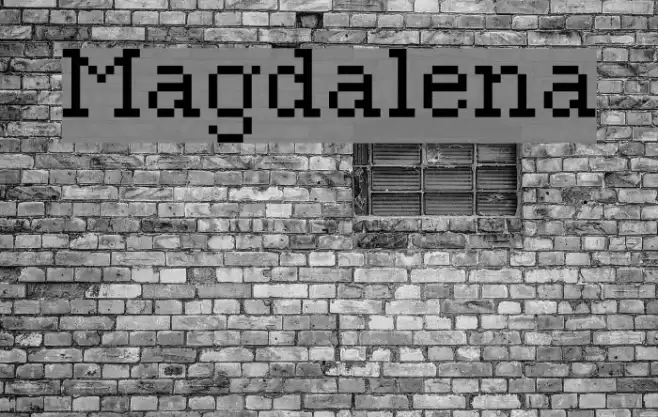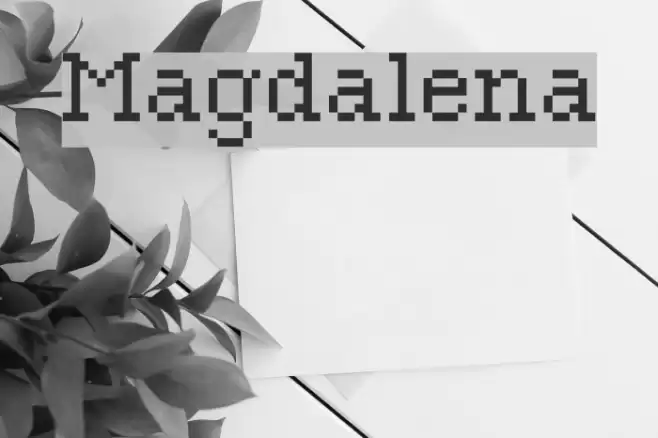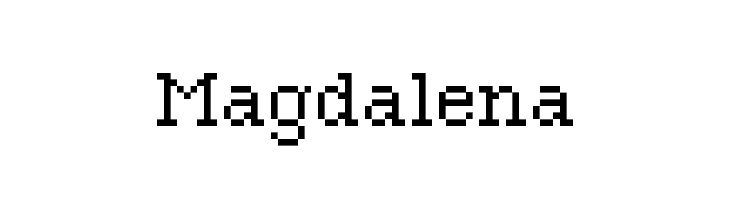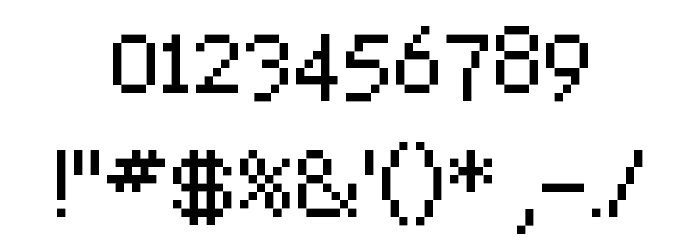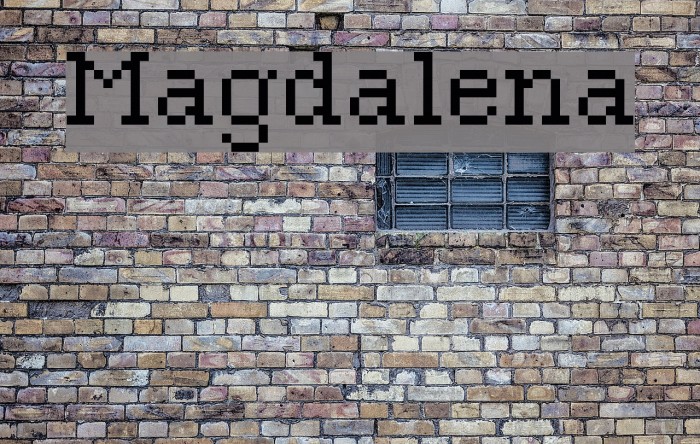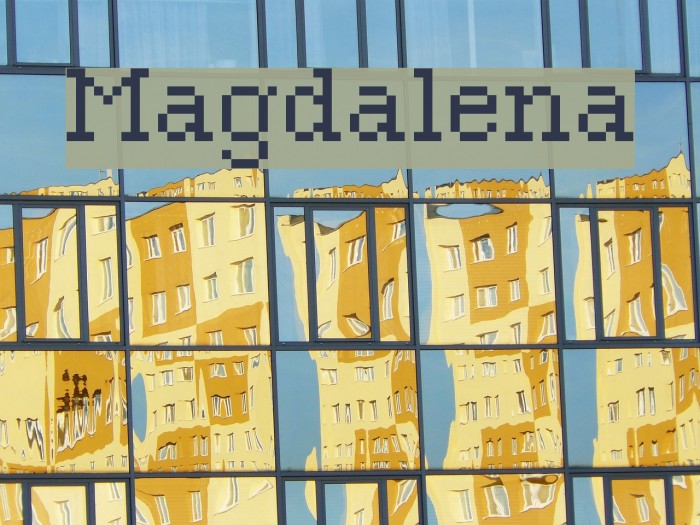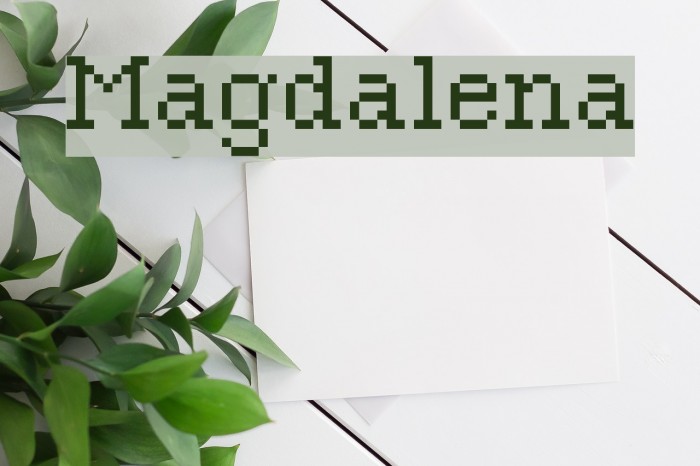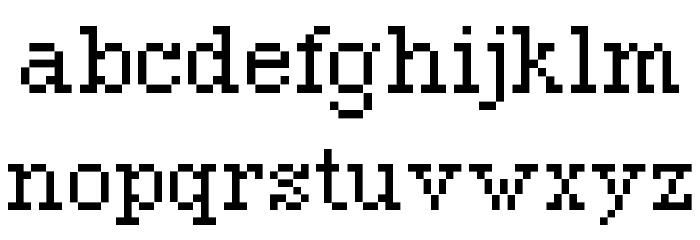
Magdalena Font
Magdalena Description
This font features a distinct pixelated style reminiscent of early digital typography. Each character is composed of square blocks, giving it a retro, video game-like appearance. The uppercase and lowercase letters maintain a consistent height, contributing to a uniform look. The numerals and special characters follow the same pixelated pattern, ensuring a cohesive design throughout. This font's nostalgic aesthetic makes it ideal for projects that aim to evoke a sense of vintage digital charm.
A pixelated font with a retro digital style from Uncategorized fonts.
- Proposed Projects: Ideal for video game design, retro-themed posters, digital art projects, and any creative work that seeks to capture the essence of early computer graphics.
- Overall Style: Vintage
- Use Case: Logos, Headlines, Digital Art